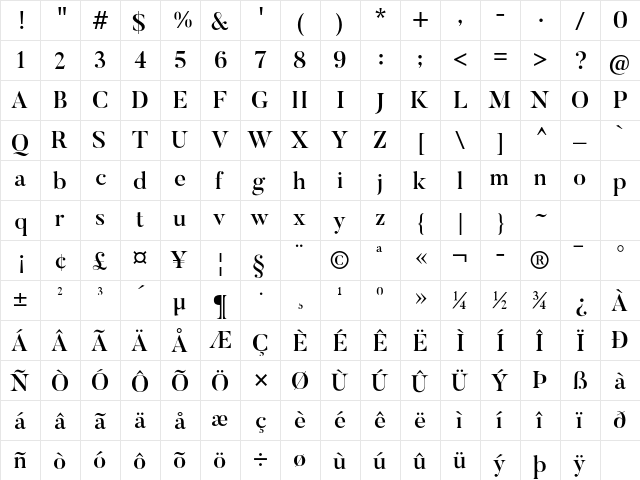
Butler Medium
| Designer | Fabian De Smet |
Design Context for Butler Typeface
Butler offers clean, dependable letterforms without strong stylistic allegiance, making it a practical choice for designers who need flexibility.
Pro Tip: Use Butler in both headline and body roles to test its range before committing to a single application.